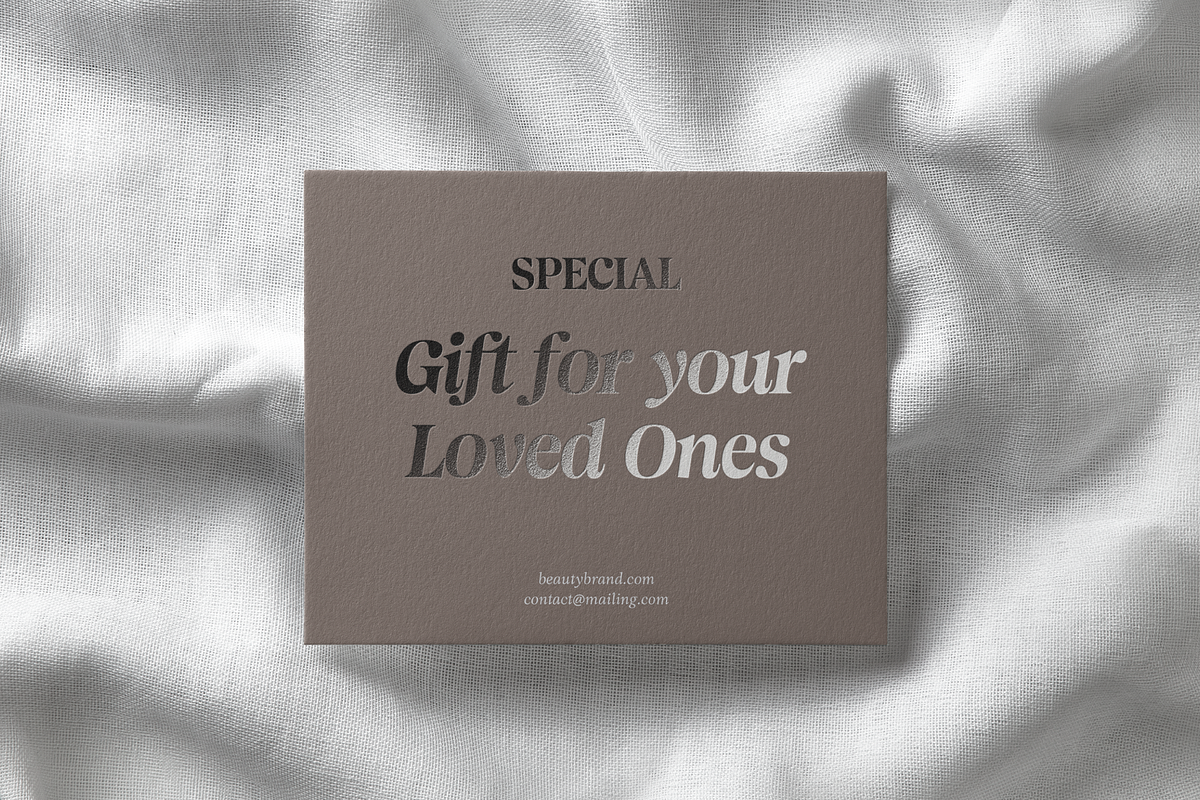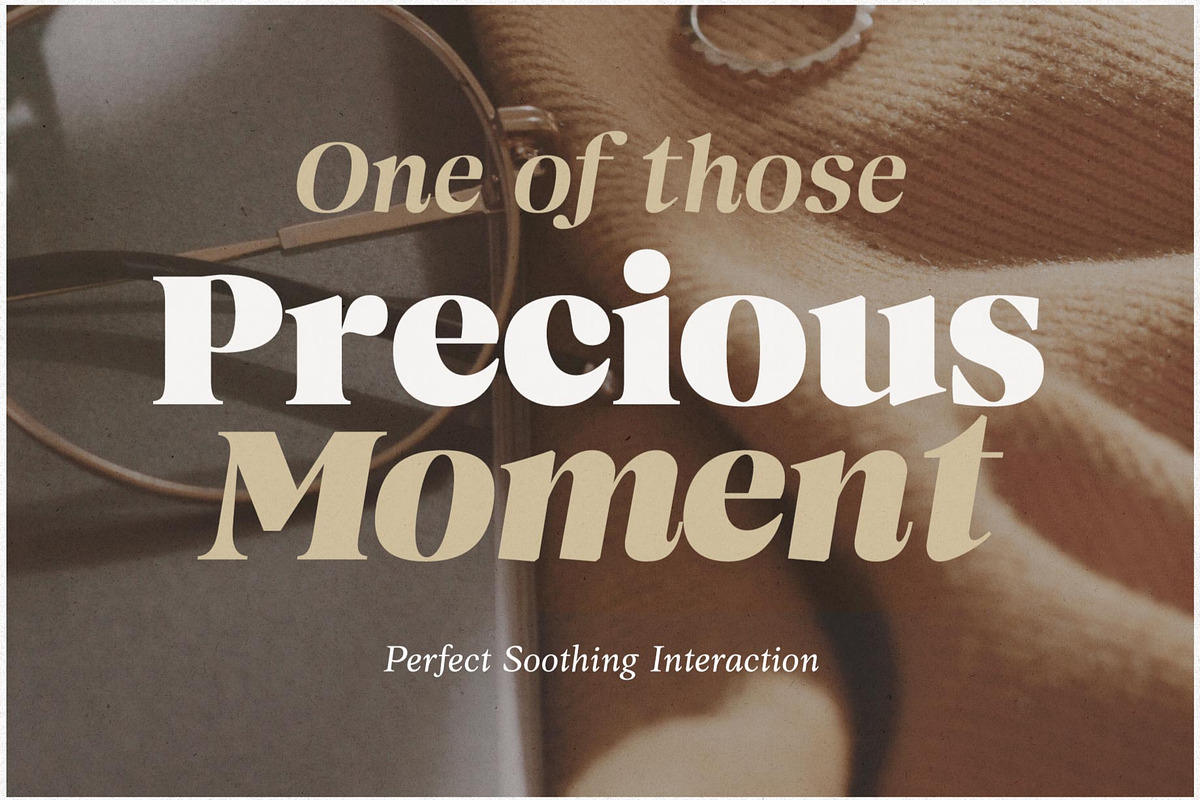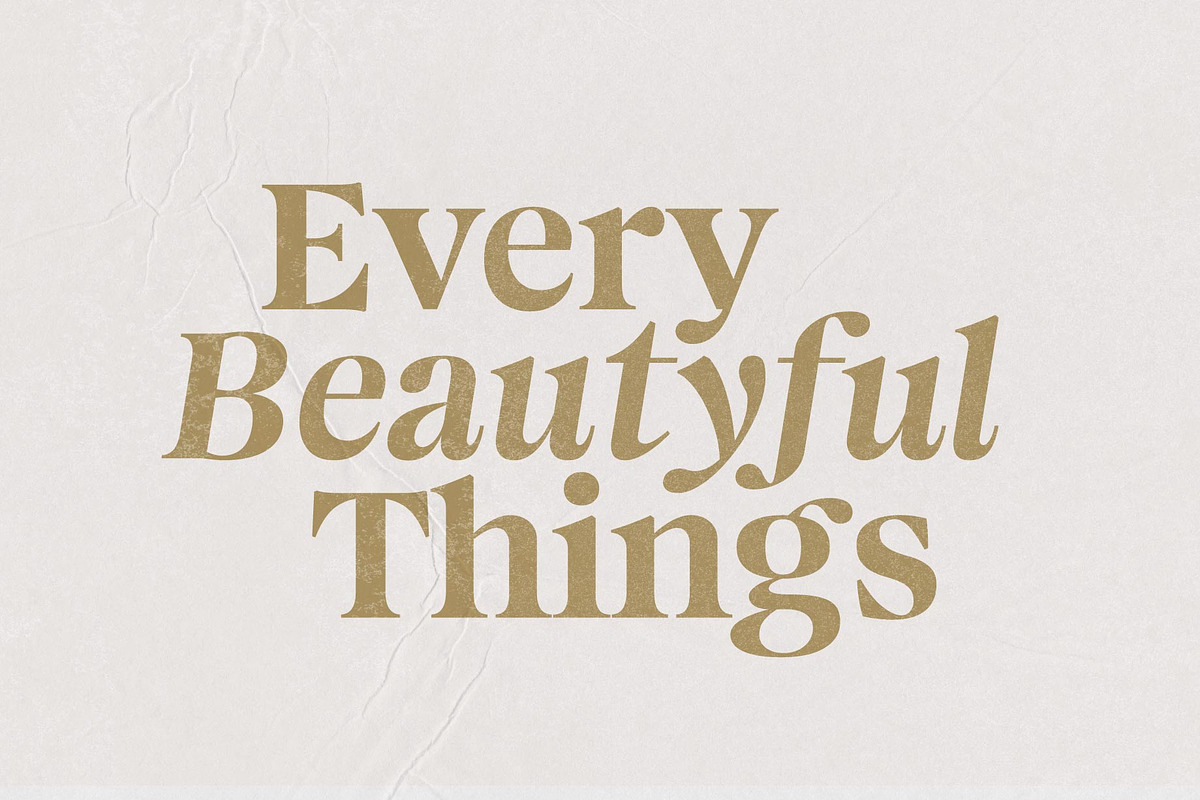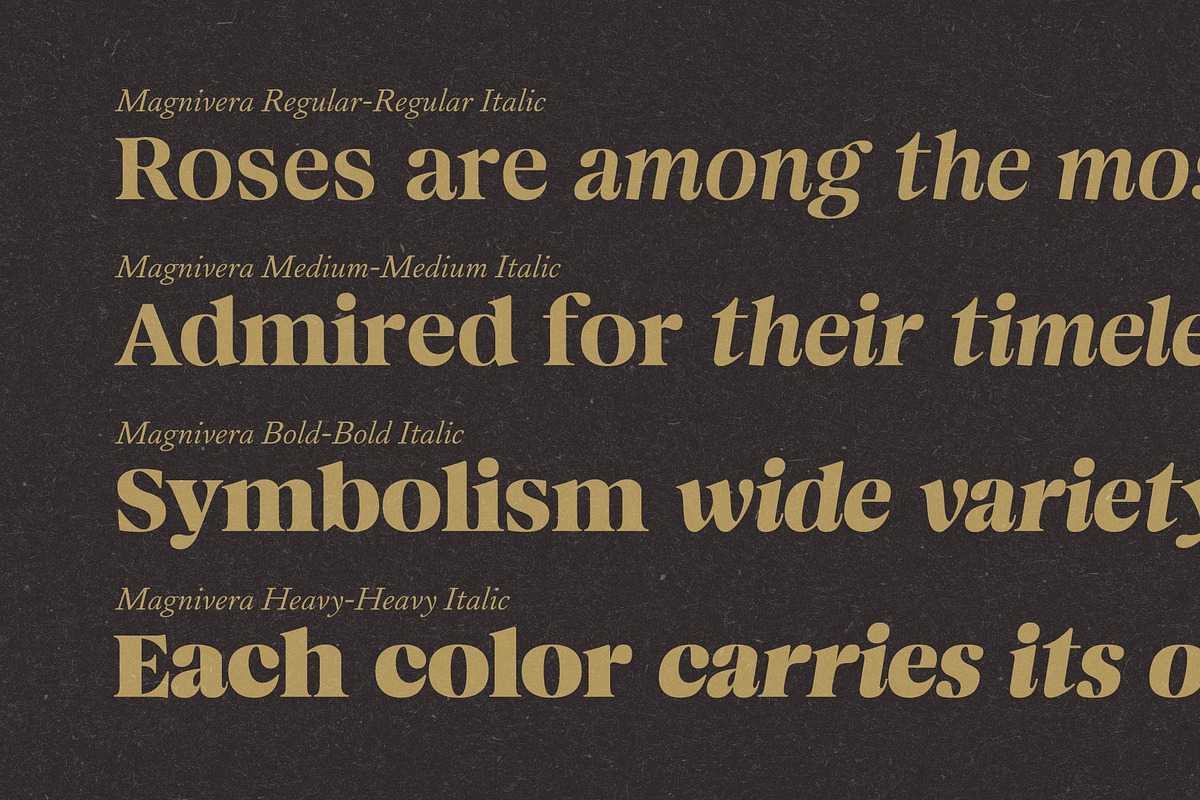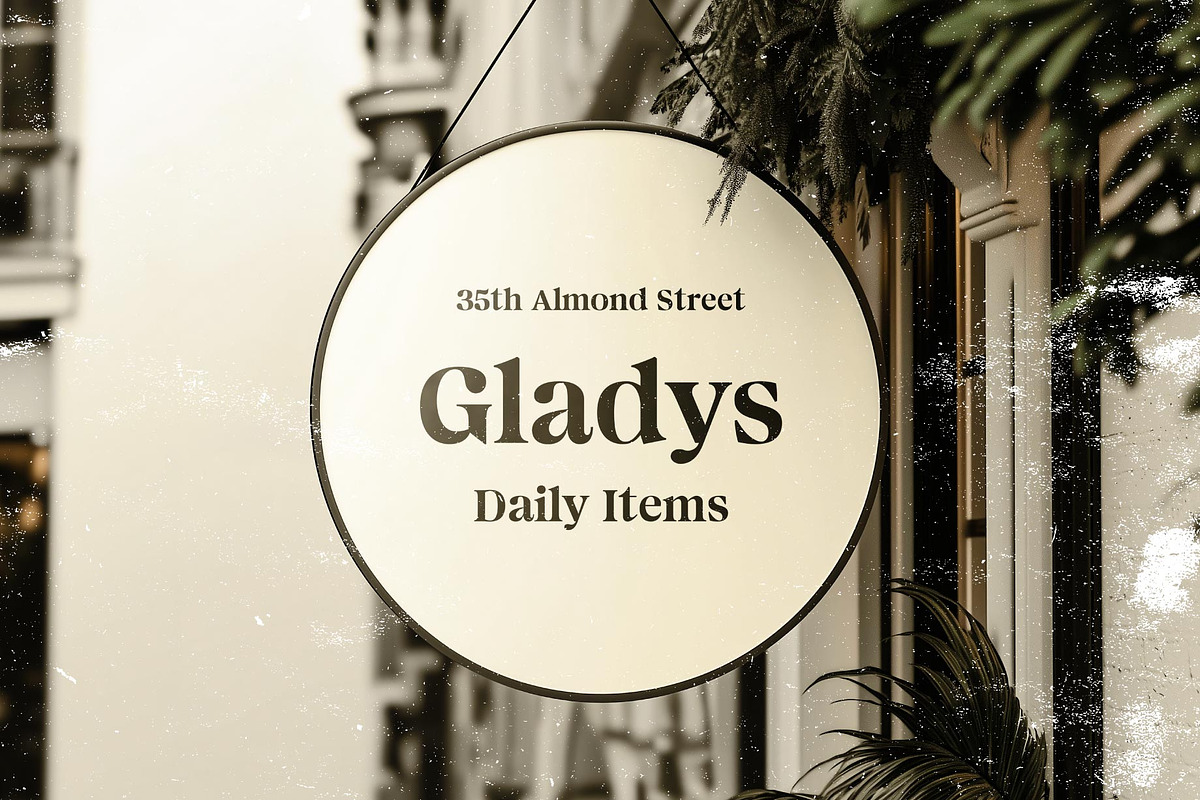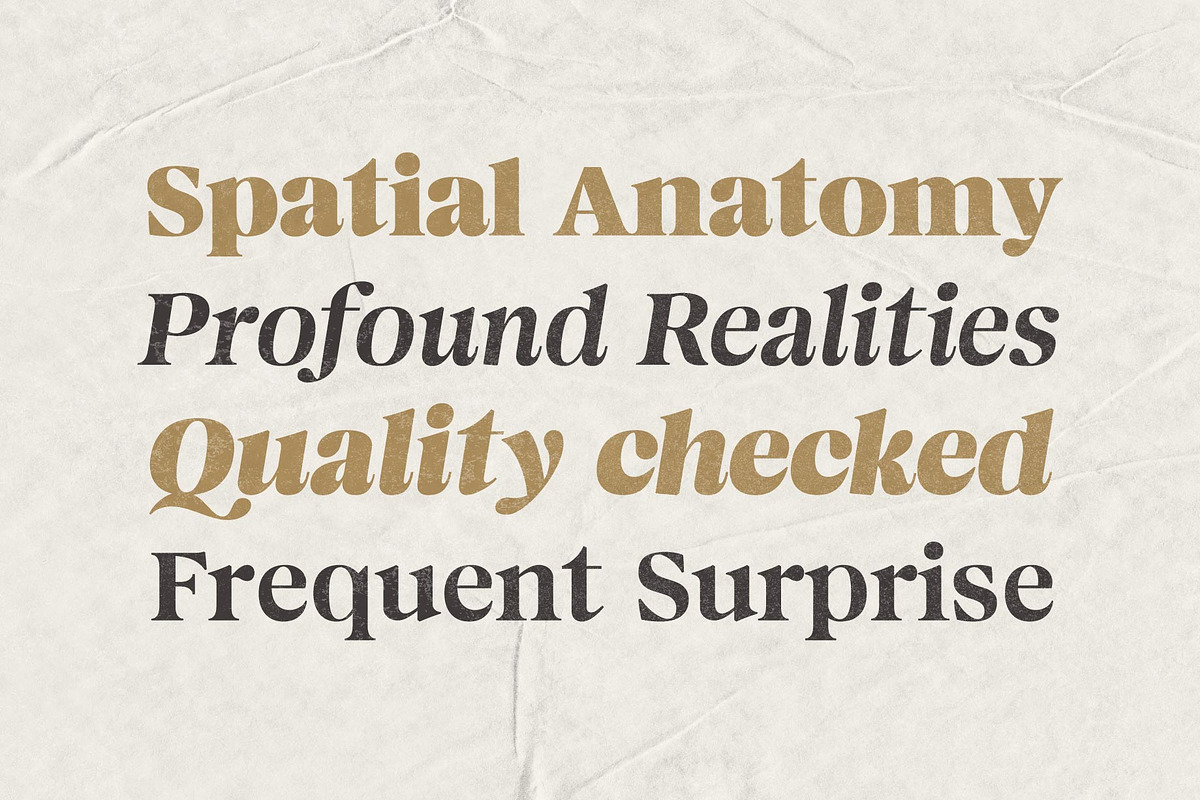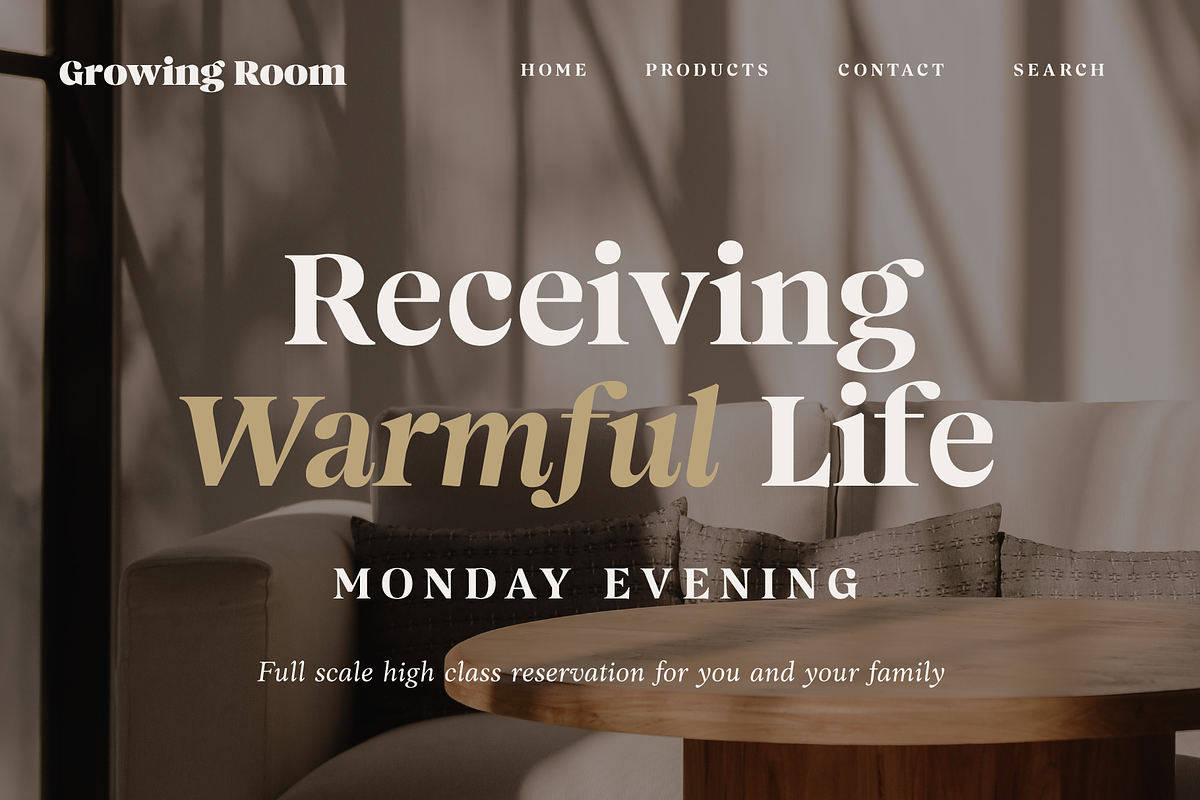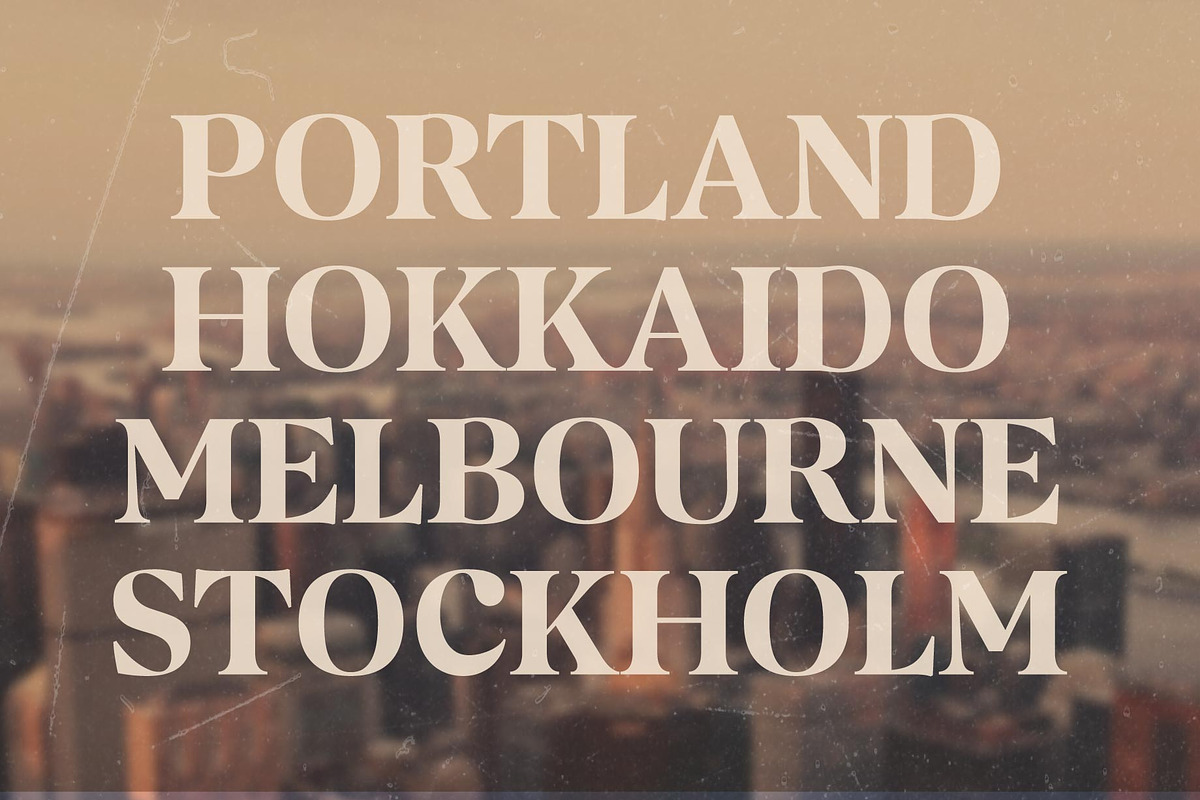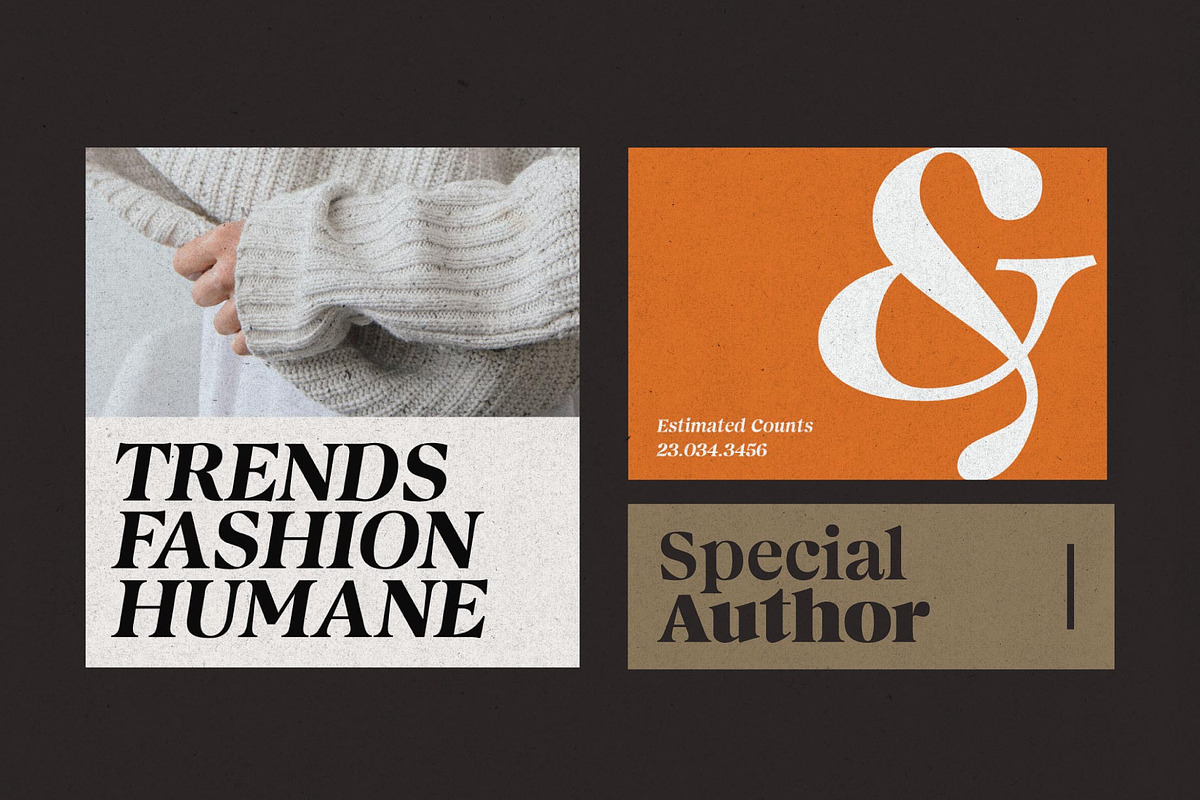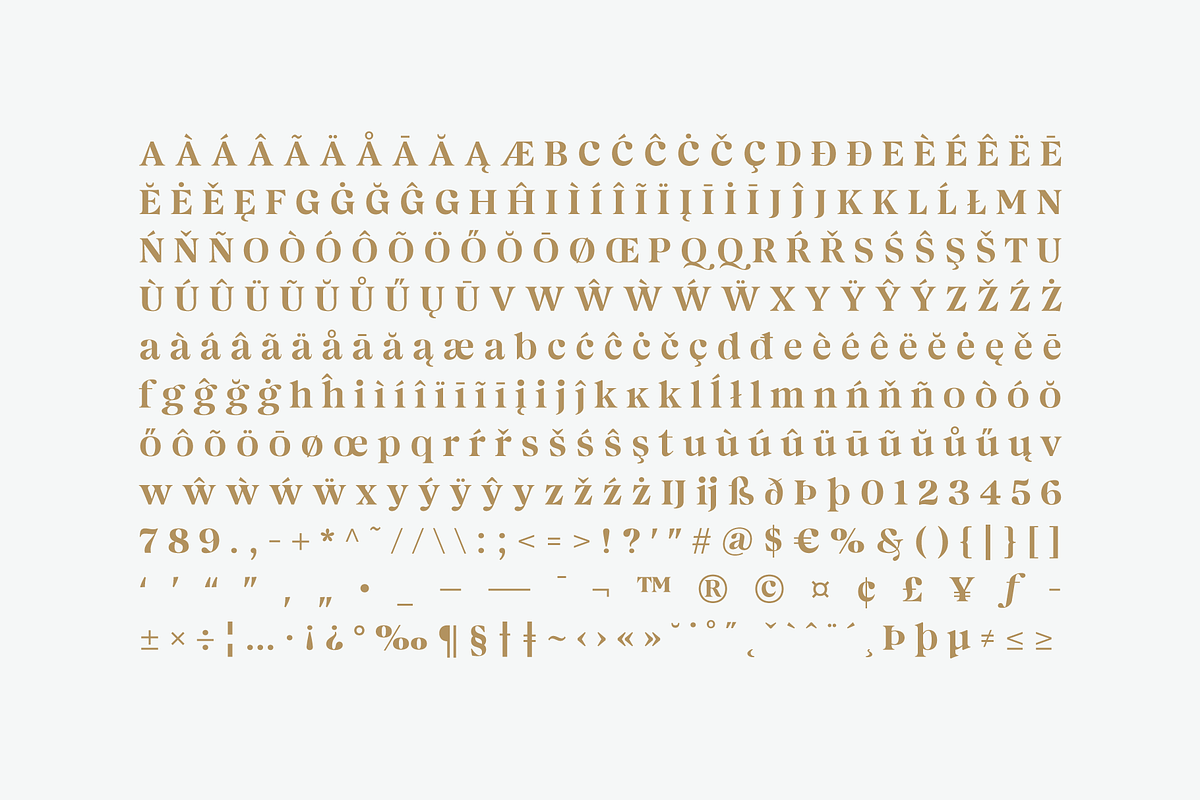
Magnivera; 8 Display Serif Font
Magnivera is a display serif font family. inspired from oldstyle serif with a high contrast letterforms, the characteristic of the typeface is flamboyant and fit for fashion theme. Magnivera consist of 4 styles from regular to heavy with matching italics.